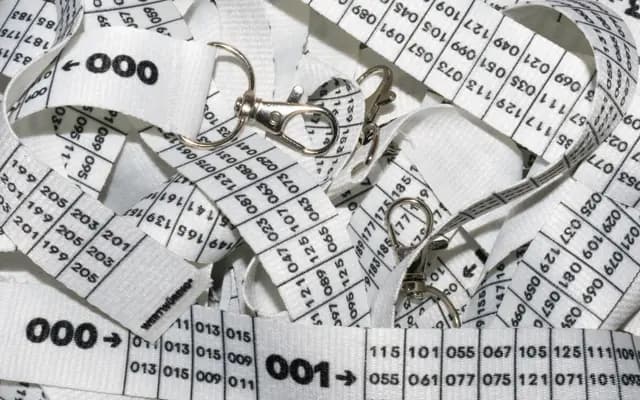
PP Object Sans
Pangram Foundry · Alex Slobzheninov · 2018
A geometric neo-grotesque workhorse by Alex Slobzheninov, sized for branding, packaging, posters and small body text.
Object Sans is a 16-style sans by Alex Slobzheninov that blends Swiss neo-grotesk discipline with geometric construction. Seven weights run from Thin to Black, each paired with a Slanted cut, and the regular weight is tuned for small body text. Cyrillic support and a variable axis make it a useful default for identity systems, packaging and on-screen interfaces.